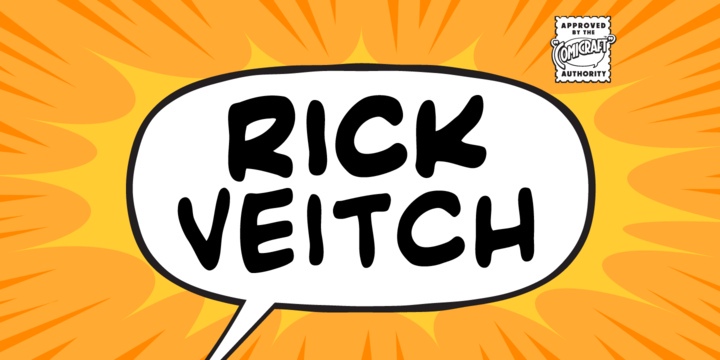
Rick Veitch Font
Rick Veitch Font is perfect for underground comic book publishers, alternative graphic novel creators, independent artistic publications, avant-garde storytelling platforms, rebellious creative agencies, and unconventional narrative projects. Its distinctive character makes it ideal for alternative art galleries, experimental comic studios, underground music venues, indie publishing houses, counterculture magazines, and any project requiring artistic rebellion with creative independence and underground authenticity appeal.
This font is exciting because it embodies the raw creative energy and artistic integrity of independent comic artistry while delivering exceptional functionality for creators who value authentic expression over commercial conformity. The boldly crafted letterforms reflect the uncompromising vision and artistic courage required to create meaningful alternative art, making it perfect for organizations celebrating creative freedom and authentic artistic expression.
The Rick Veitch Font family typically includes Regular, Bold, and experimental variations with alternative character sets, underground-inspired ligatures, and artistic elements that enhance its rebellious personality. This comprehensive collection enables creative professionals to develop authentic brand systems that maintain artistic credibility while offering flexibility for various independent applications requiring both creative authority and underground market positioning.
Whether you're developing identity systems for independent publishers, creating materials for alternative art exhibitions, or designing promotional content for underground creative venues, Rick Veitch Font Free Download delivers the artistic authenticity and creative rebellion that resonates with audiences seeking genuine artistic expression and independent creativity. Its distinctive presence ensures memorable brand recognition across digital platforms and print materials, making it perfect for websites, mobile applications, and artistic campaigns that celebrate creative independence, underground culture, and the transformative power of authentic artistic vision with contemporary alternative appeal and genuine creative integrity.